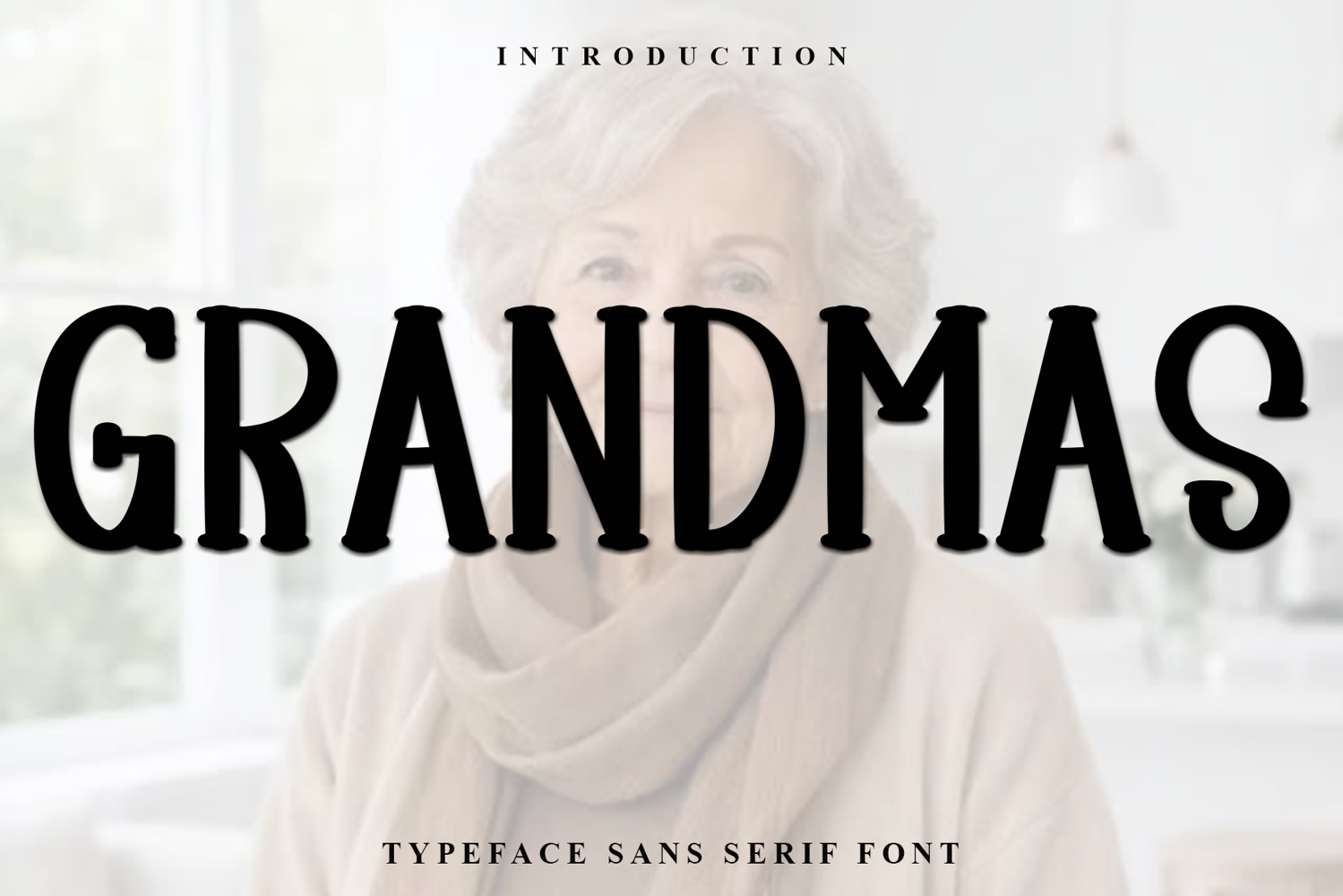
Grandmas
Grandmas is a beautiful and eye-catching font designed with a soft, unique touch. Its distinctive strokes give it a special character, making it meaningful and versatile for future use. With various characters, it’s perfect for design projects, crafts, and other creative works.